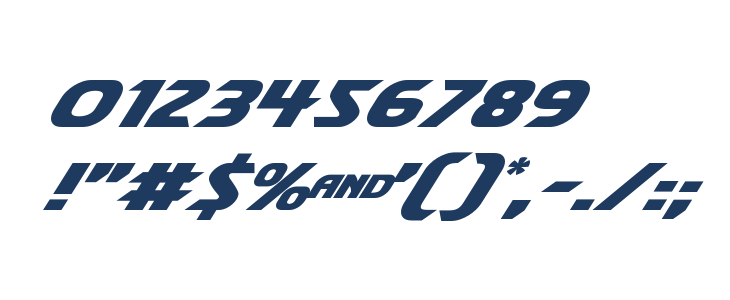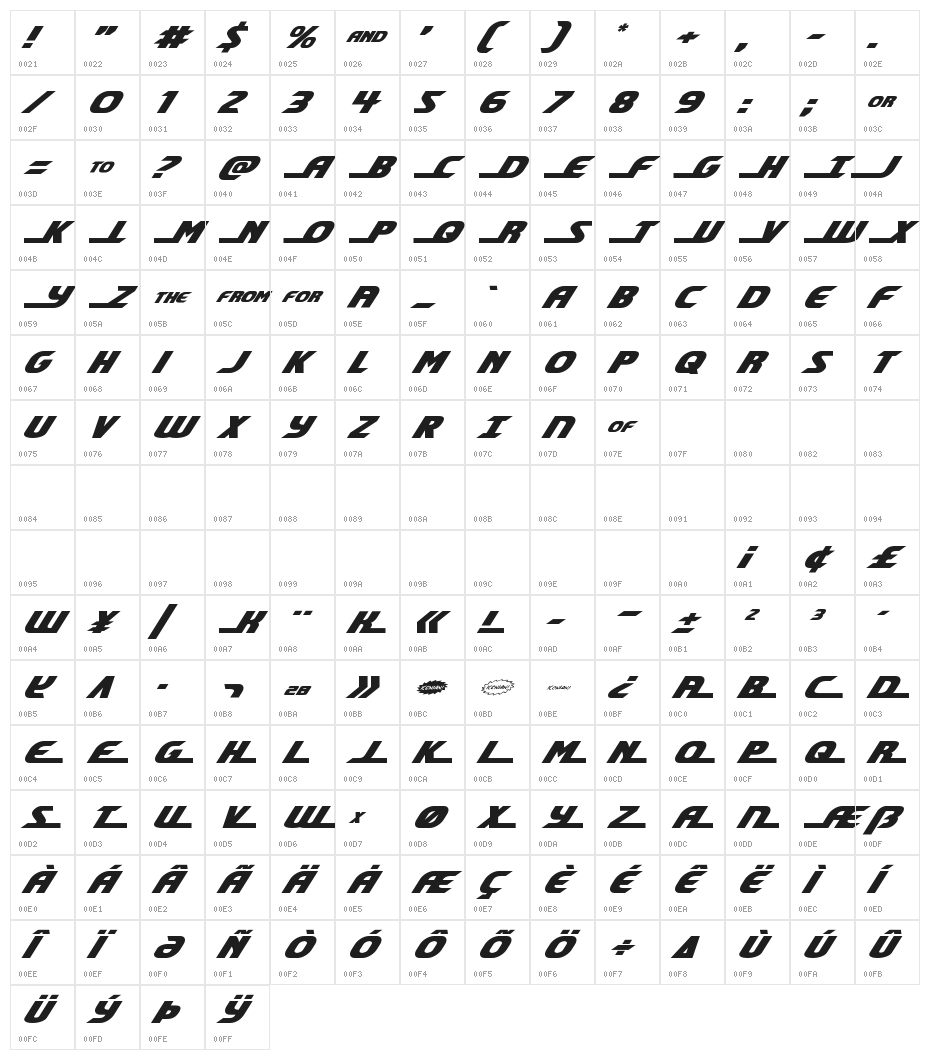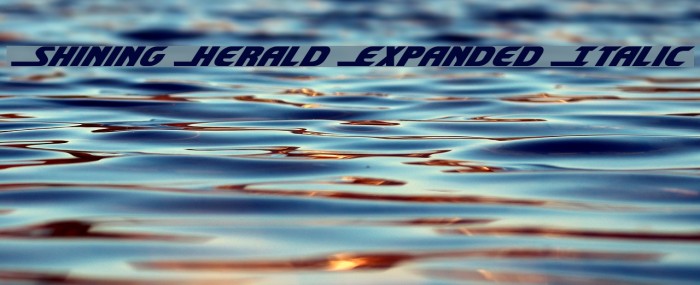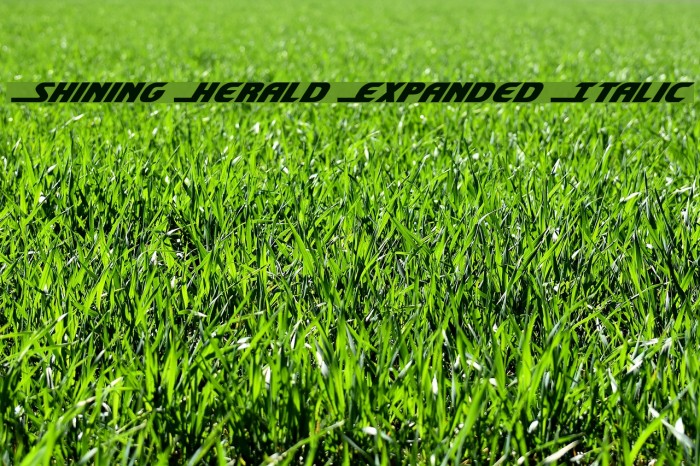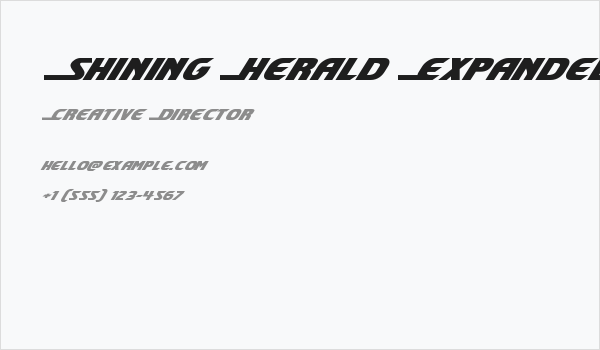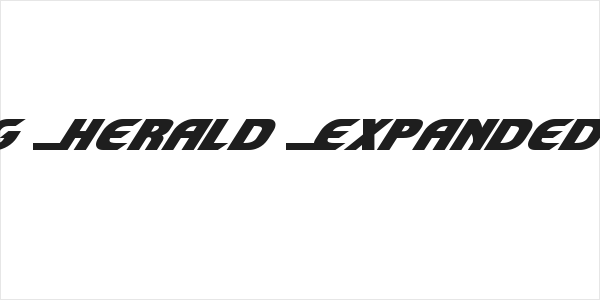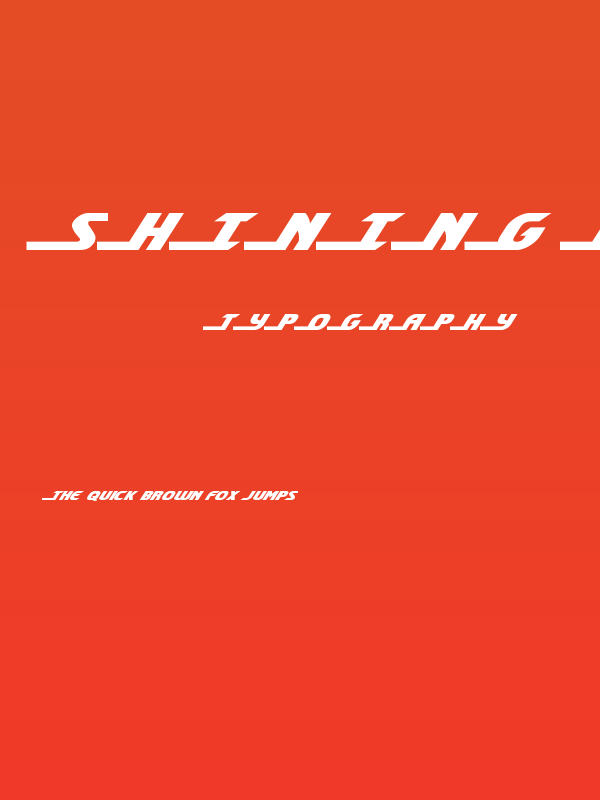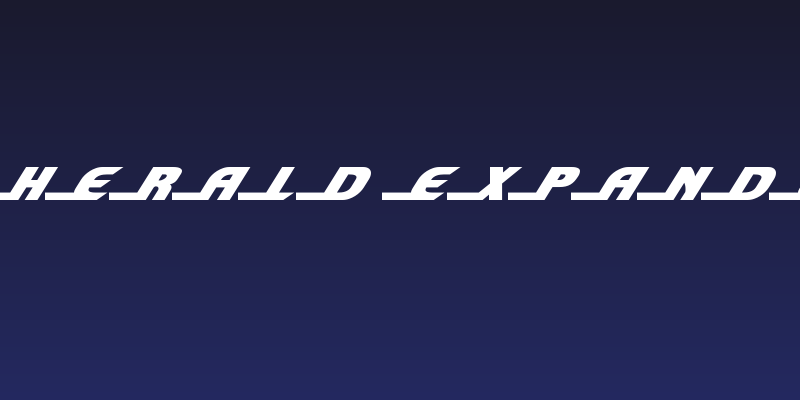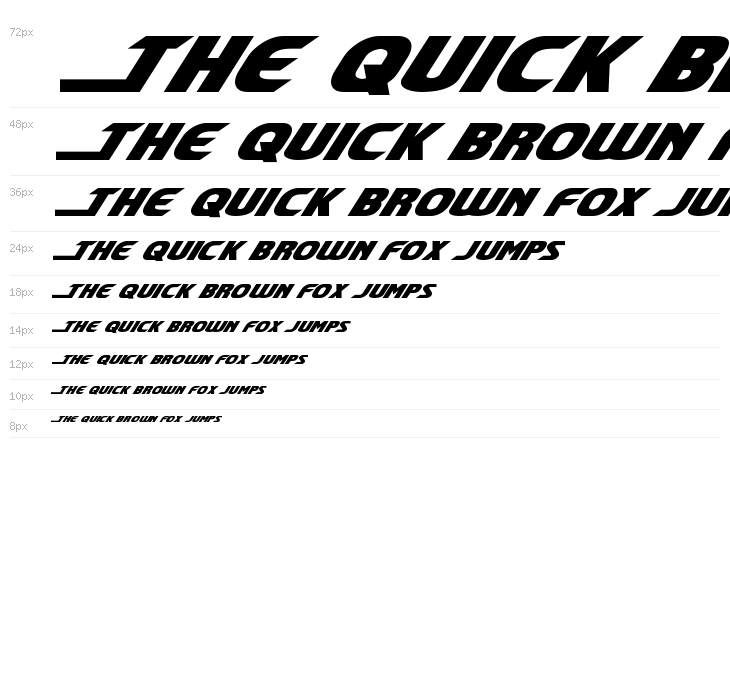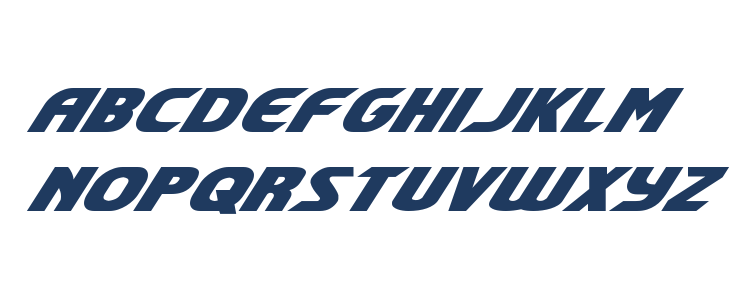
Shining Herald Expanded Italic Font
Shining Herald Expanded Italic Description
This font features a bold and dynamic style with an italic slant, giving it a sense of motion and energy. The characters are expanded, providing a wide and impactful appearance. The strokes are thick and consistent, offering a strong visual presence. The design is modern and sleek, with a futuristic flair that makes it suitable for attention-grabbing headlines and logos. The spacing between characters is tight, enhancing its bold and cohesive look. This font is ideal for projects that require a powerful and contemporary aesthetic.
| Proposed Projects | Ideal for sports branding, automotive logos, futuristic designs, and dynamic headlines. |